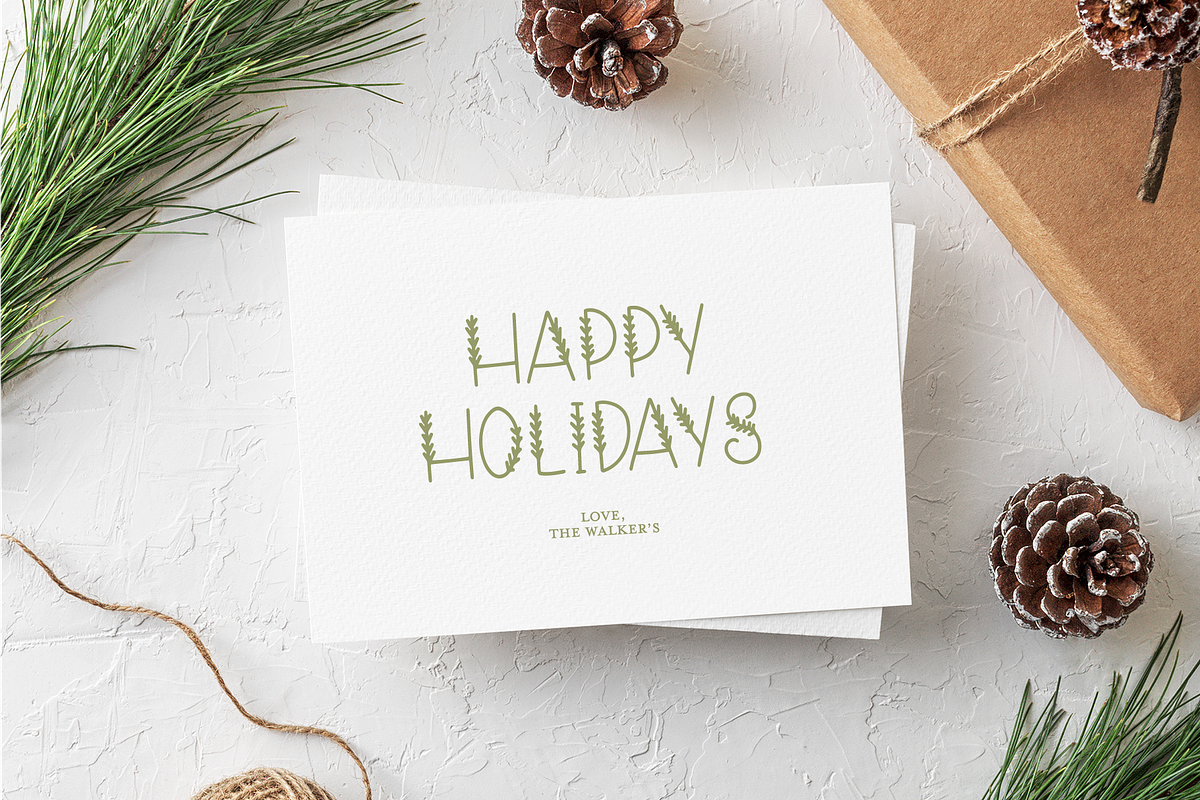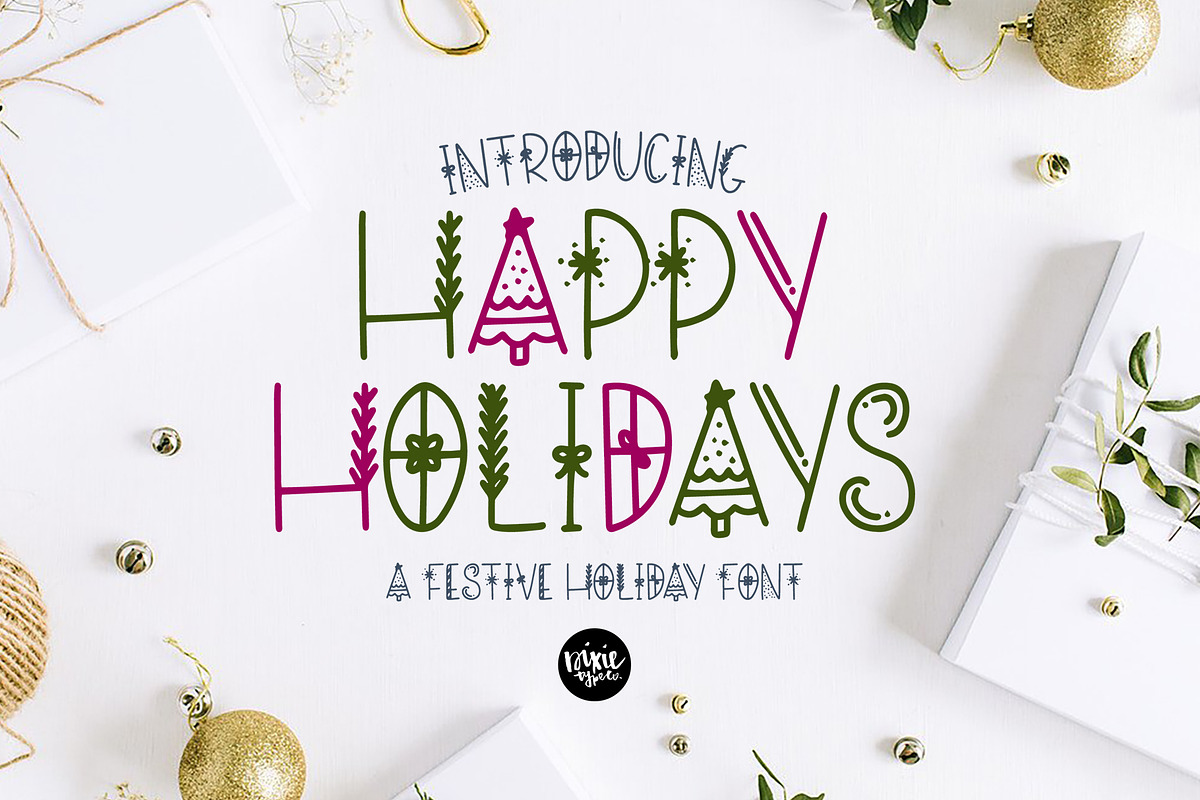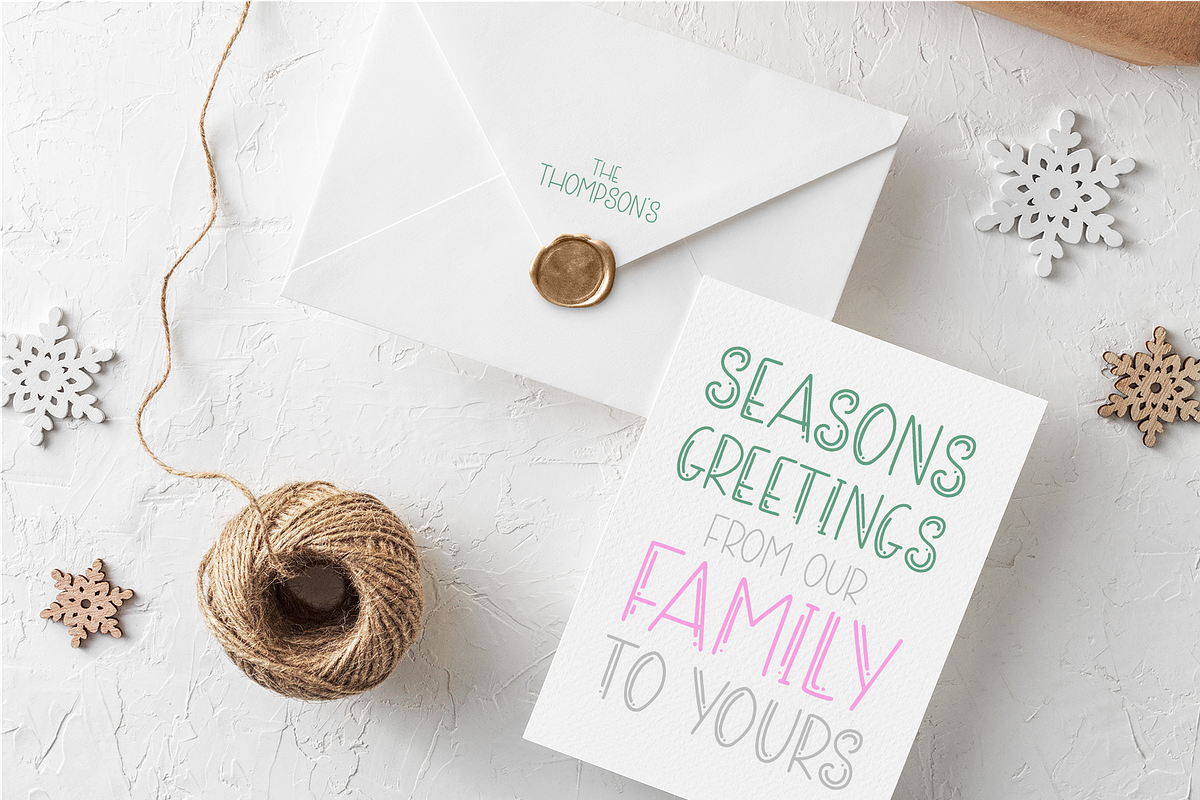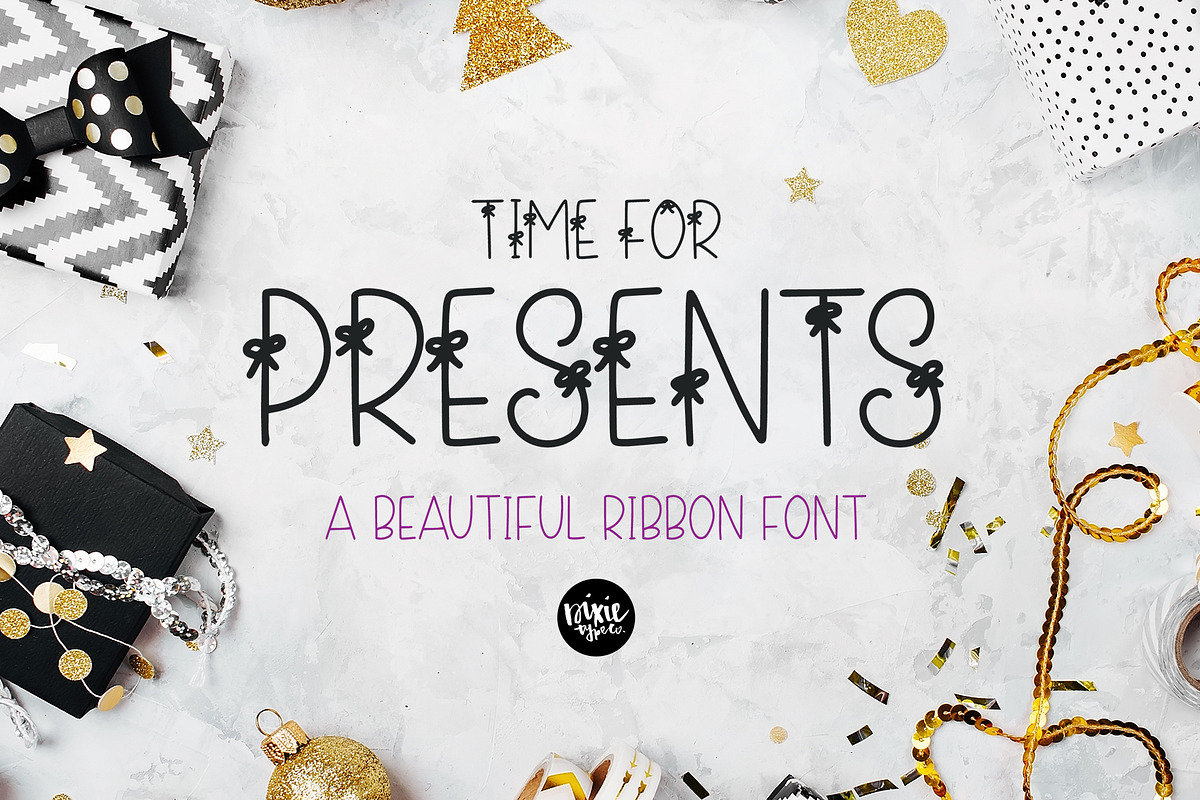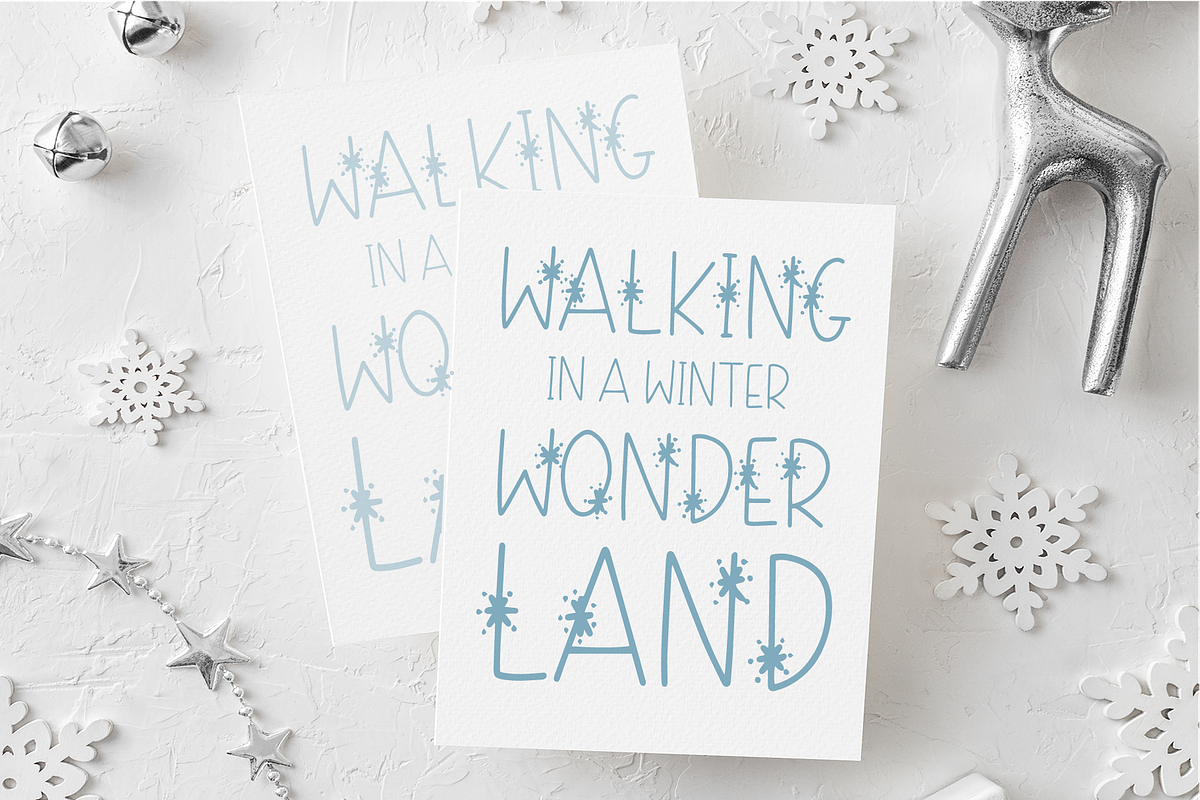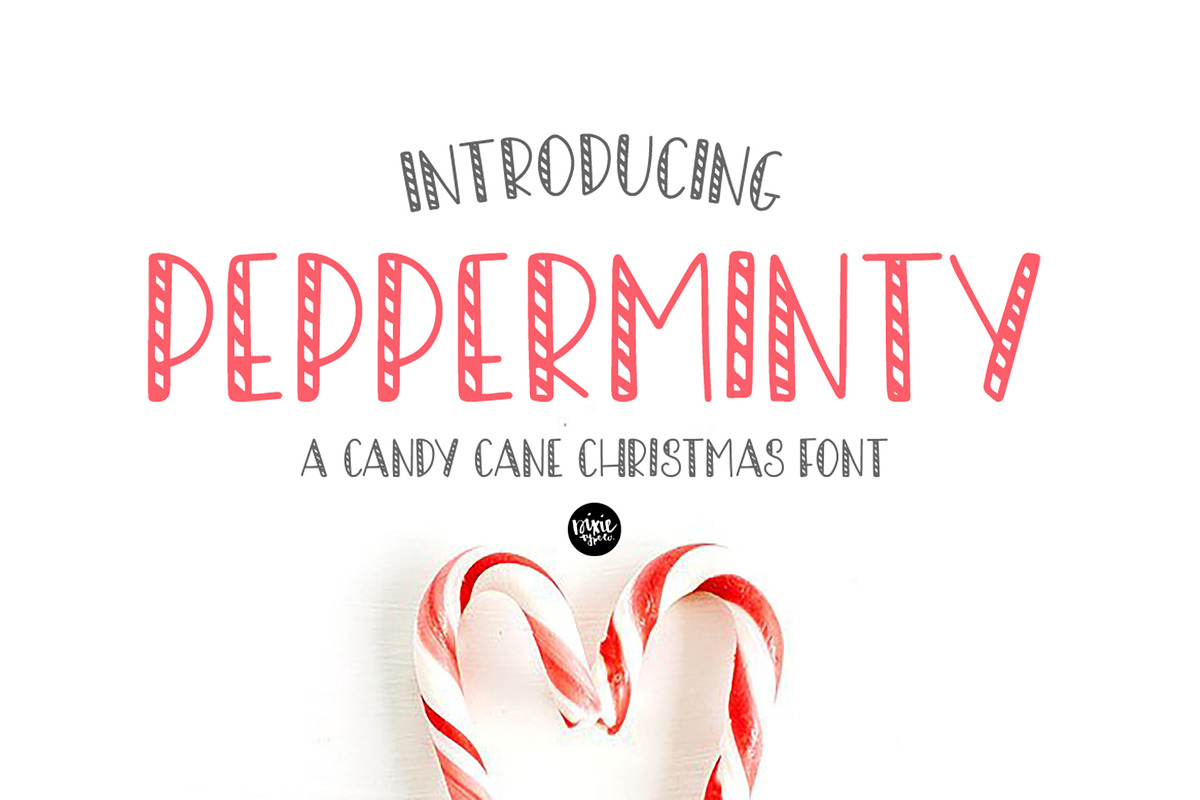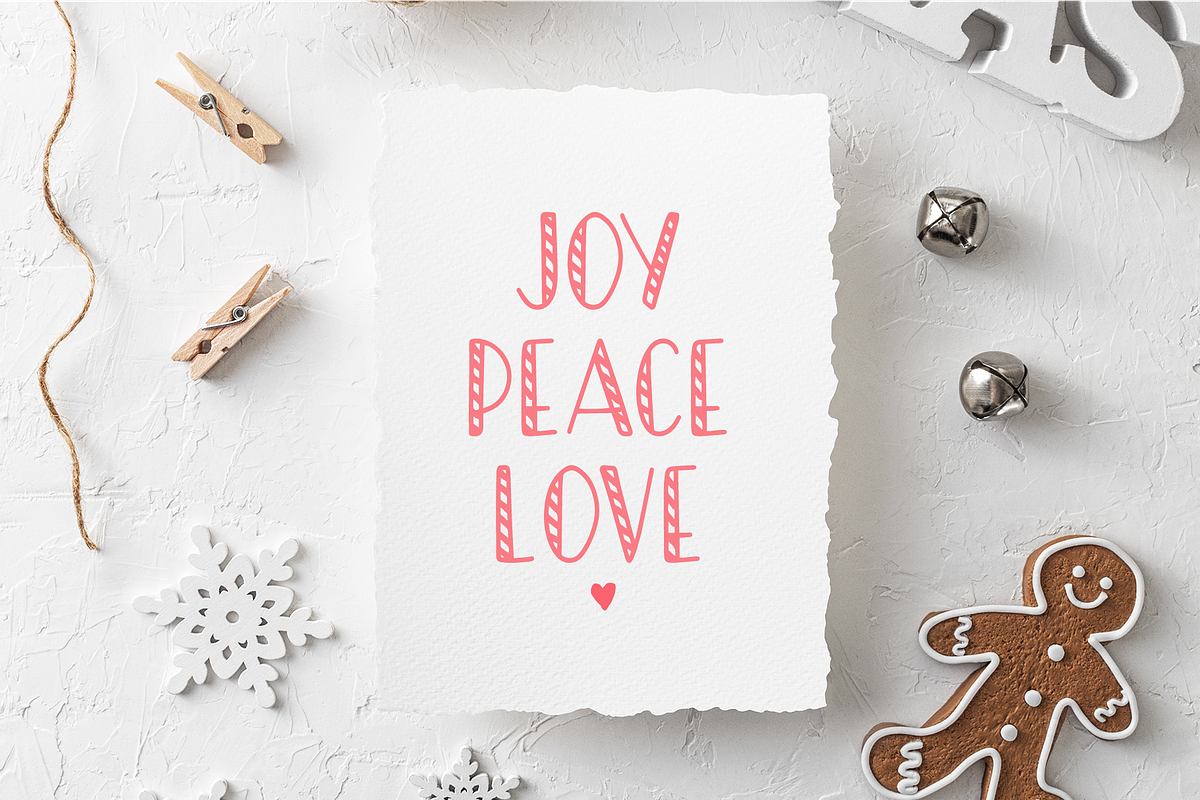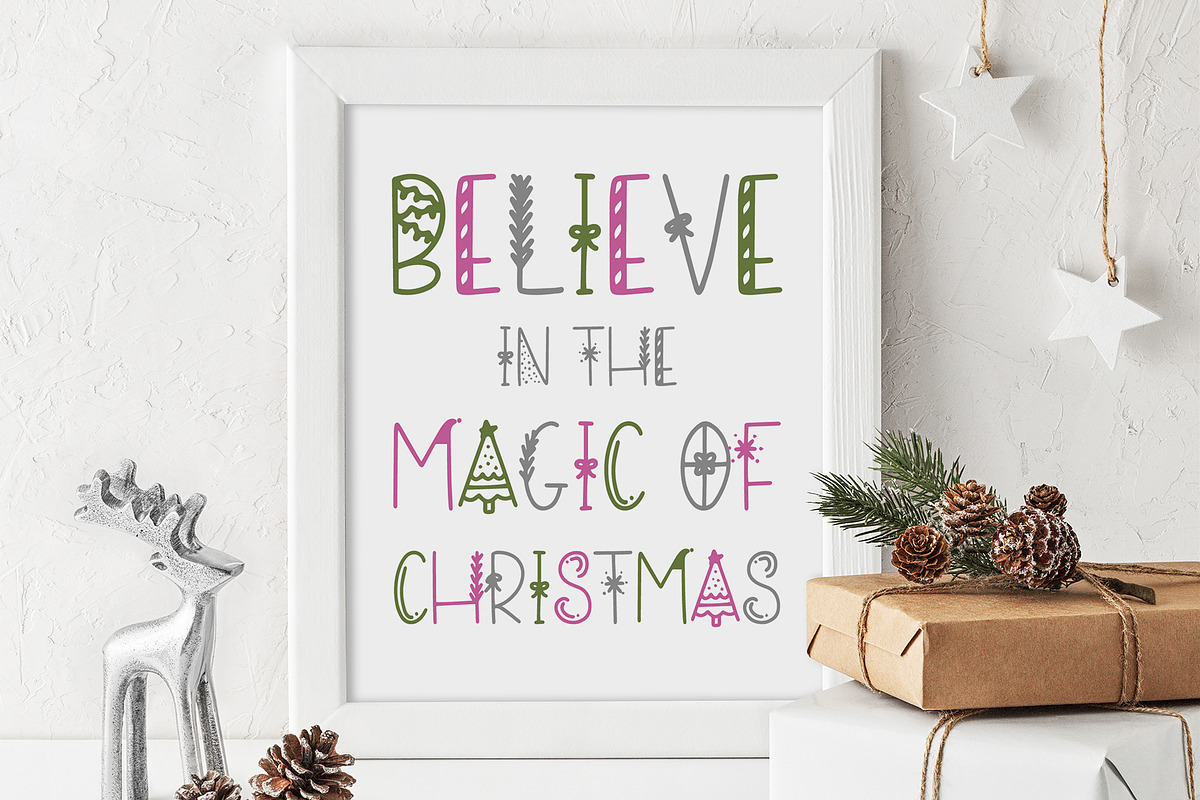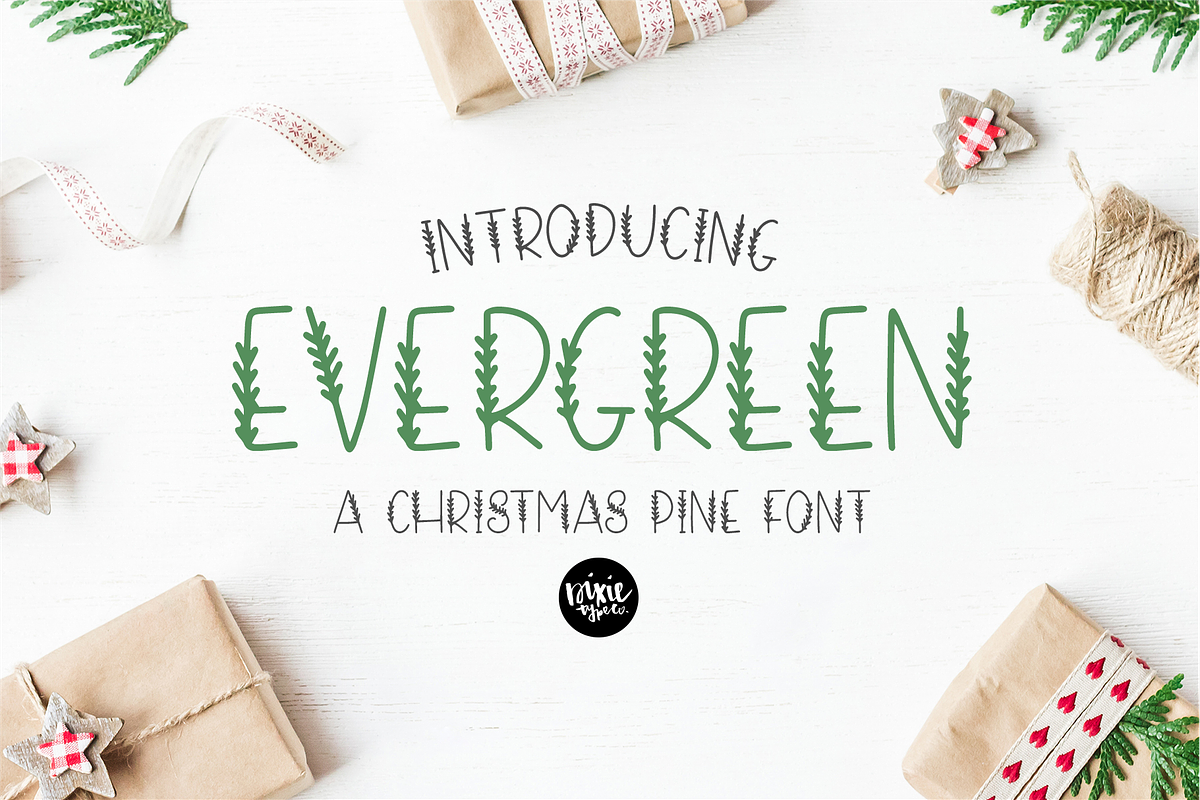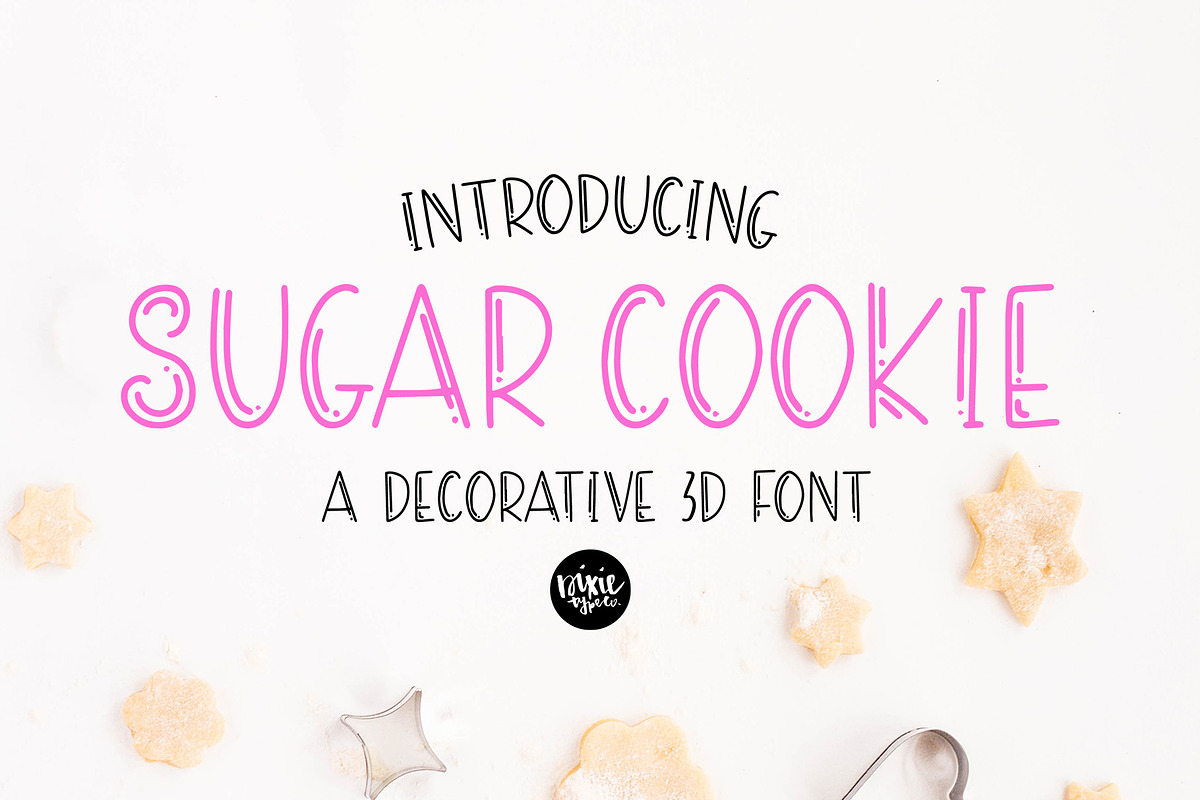
HAPPY HOLIDAYS Font Family
This festive font bundle includes ALL 6 new and coordinating holiday fonts.
-DTC Pepperminty -DTC Sugar Cookie -DTC Happy Holidays -DTC Evergreen -DTC Time For Presents -DTC Snowflake
This bundle has you covered for all your holiday needs! Pine, snowflake, peppermint and MORE themed fonts. Use them on Christmas cards, winter crafts for decor and more! These fonts include numbers and basic punctuation.
UPPERCASE characters in these fonts are (matching) basic sans letters, and lowercase characters provide the holiday letters. Each font will be titled with "DTC" preceding the title in your library.